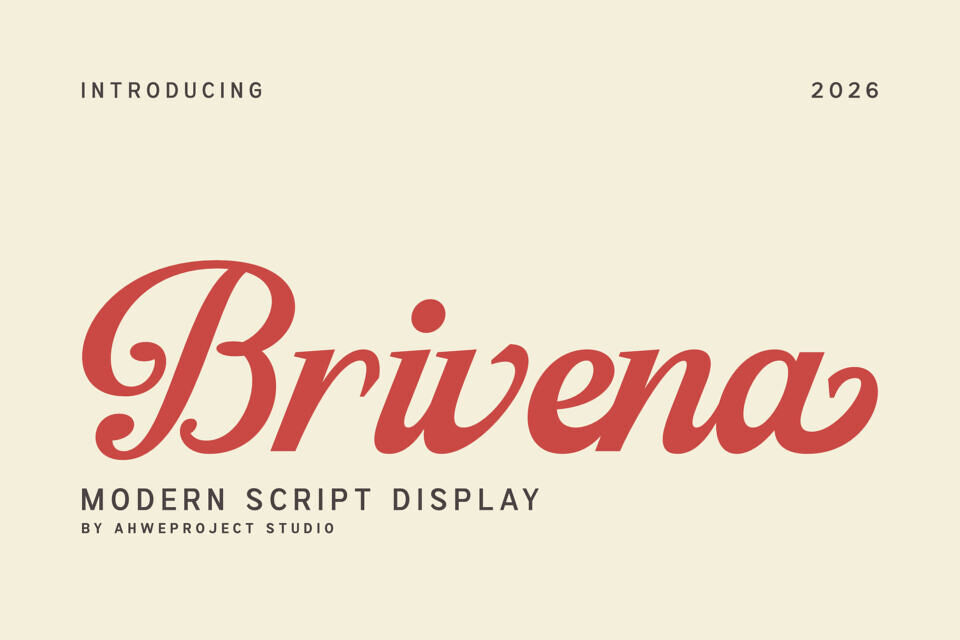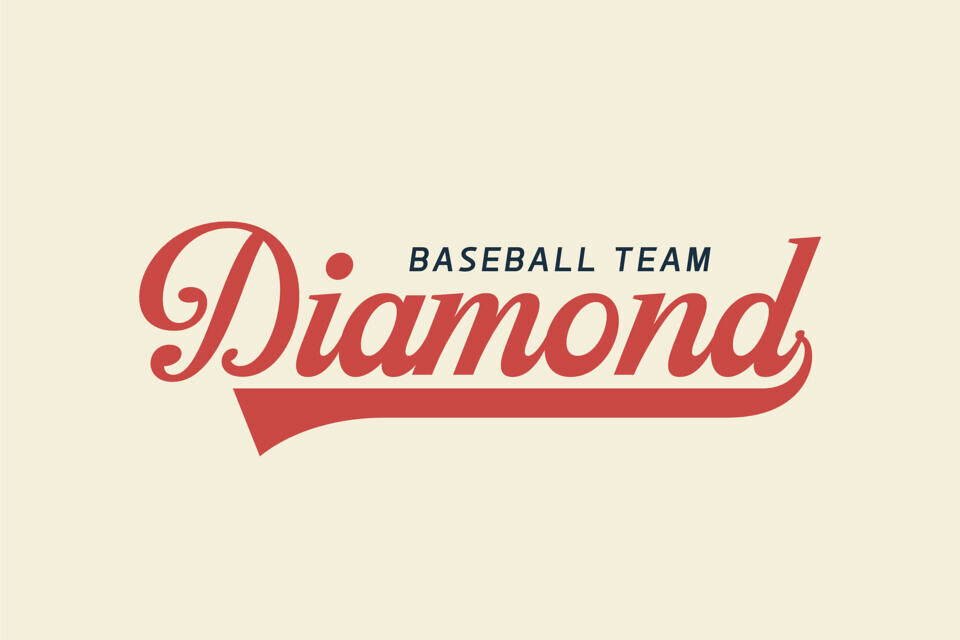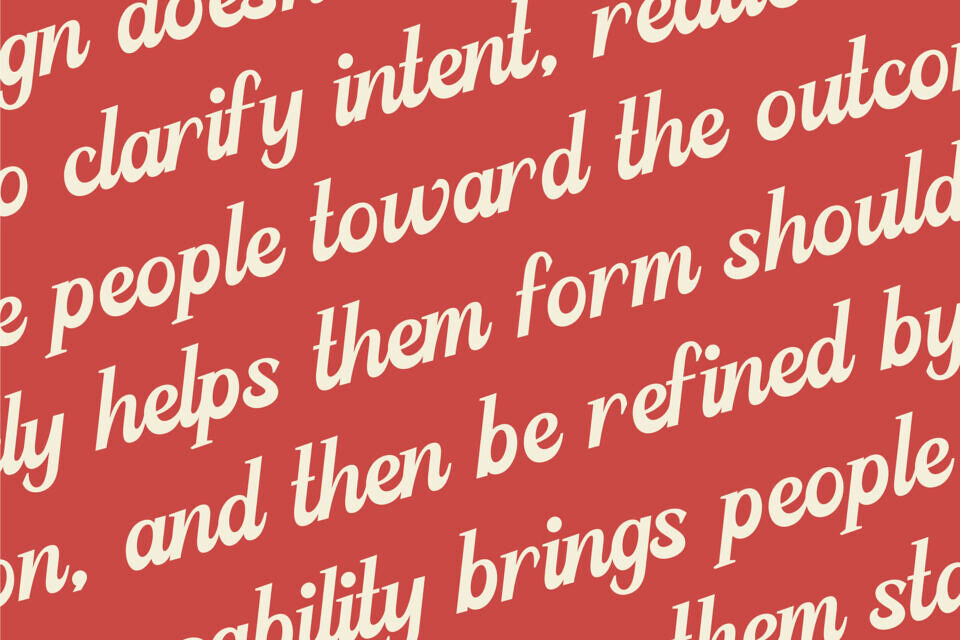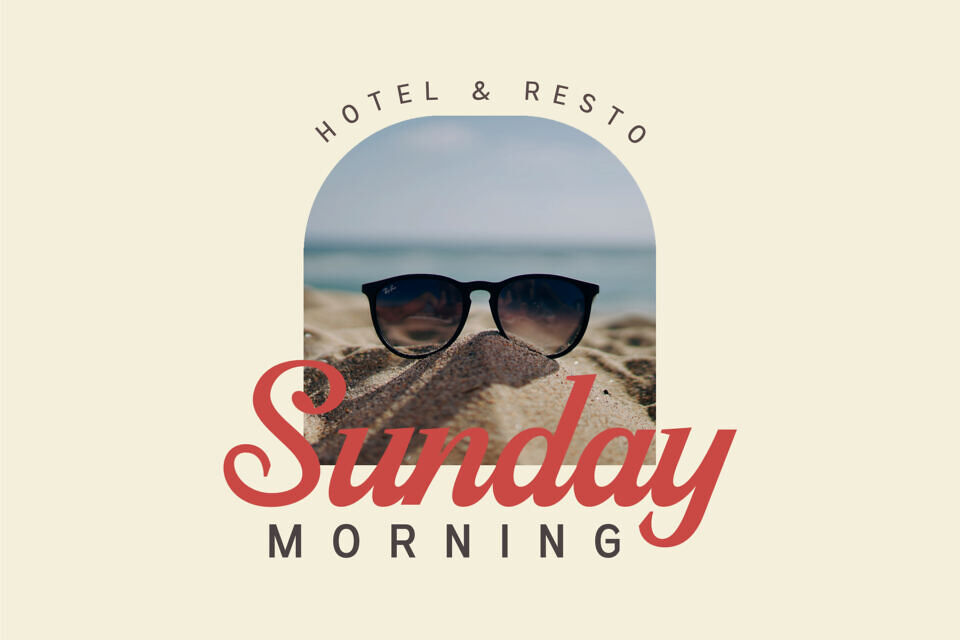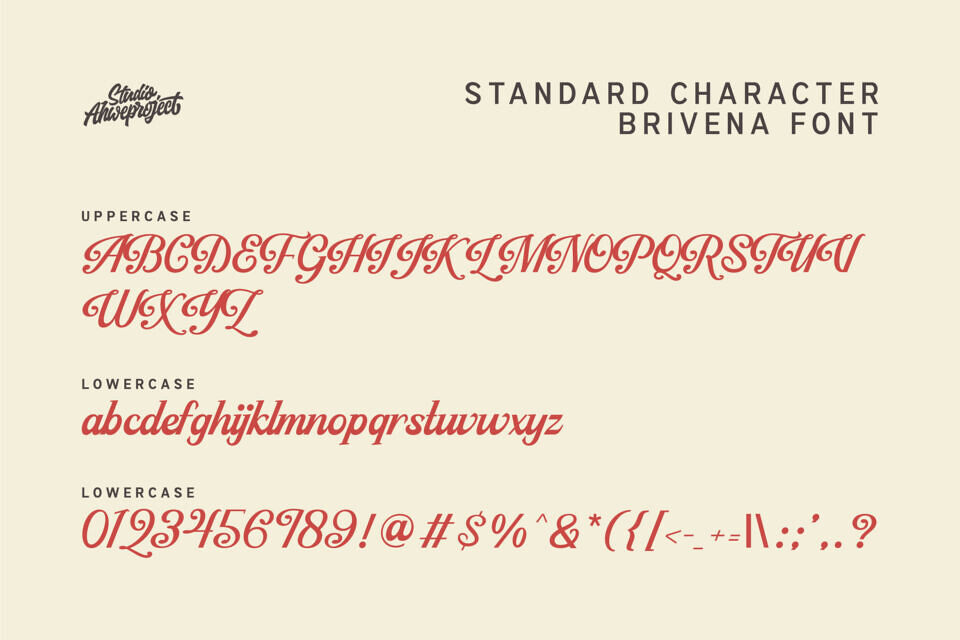
Brivena Font
Brivena is a modern script display font that blends elegance with bold personality. Designed with smooth curves and confident strokes, Brivena delivers a luxurious yet approachable feel—perfect for branding, logos, packaging, social media, and headline designs that need to stand out.
Its flowing letterforms create a natural rhythm, making every word feel stylish and expressive without sacrificing readability. Whether you’re building a premium brand or eye-catching visuals, Brivena gives your design a strong, memorable presence.